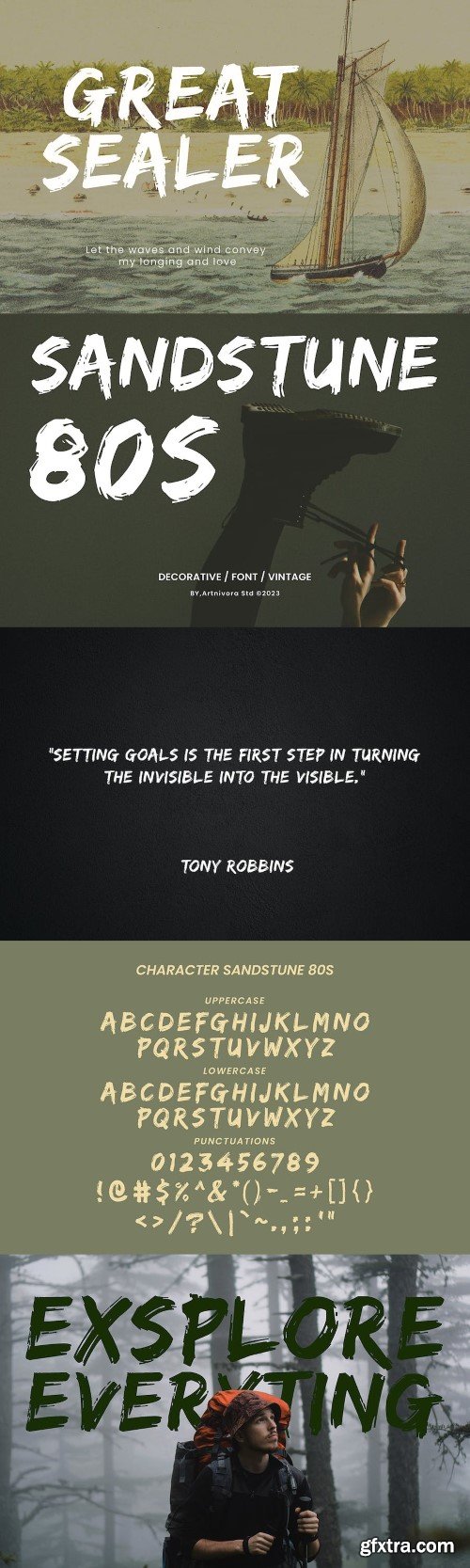
Introducing Sandstune, a simple and unique decorative font. So perfect for you who needs a typeface for logo designs, magazine, social media, brochure, and many more.
Features
- Uppercase
- Lowercase
- Punctuation
- Numerals